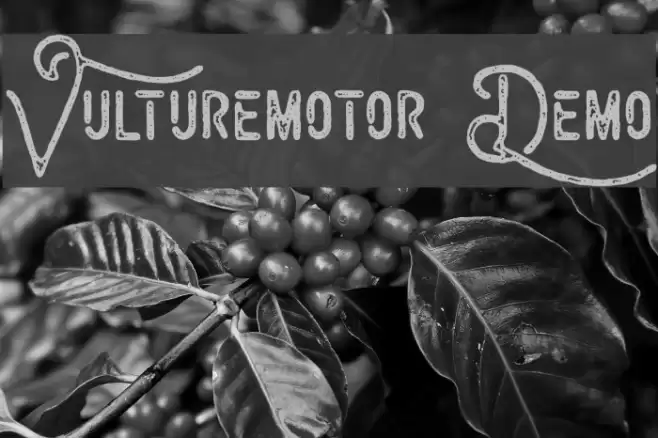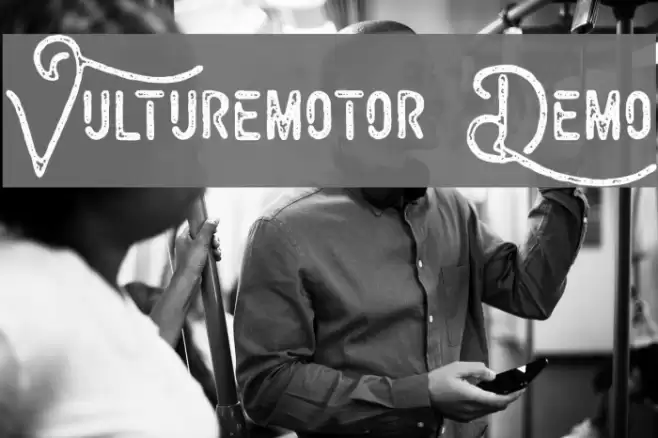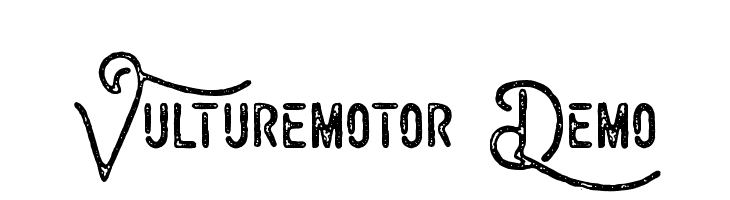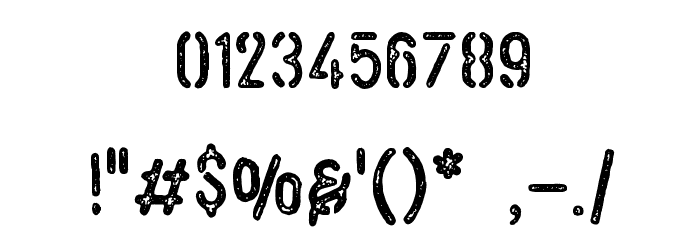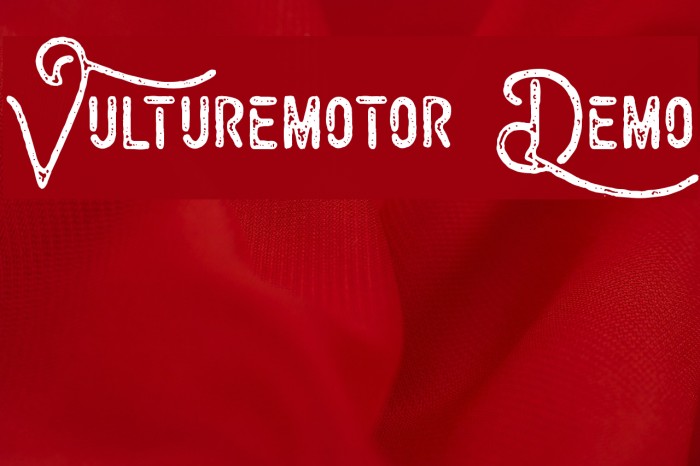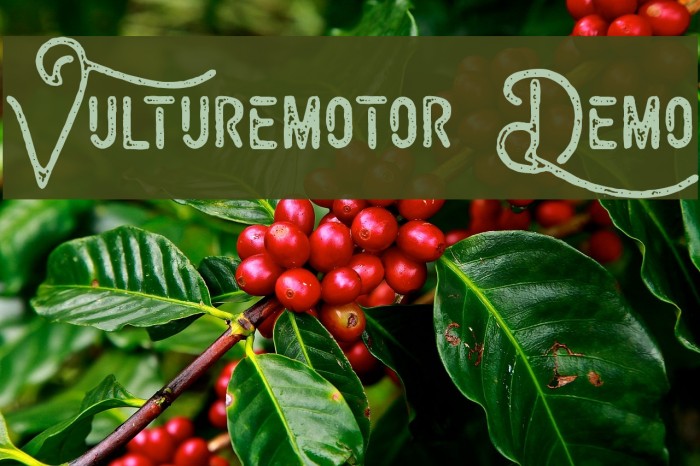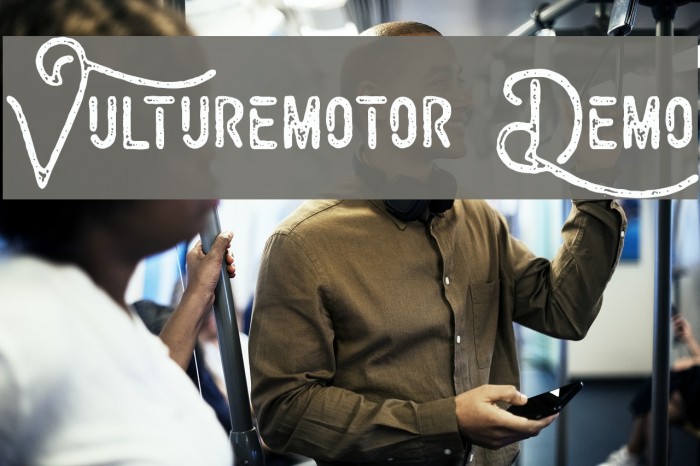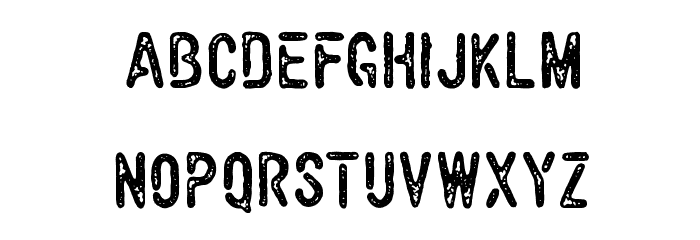
Vulturemotor Demo Font
Vulturemotor Demo Description
This font features a unique combination of ornate script and distressed sans-serif styles. The uppercase script letters are highly decorative, with intricate loops and flourishes that give a sense of elegance and sophistication. In contrast, the uppercase sans-serif letters are bold and rugged, with a distressed texture that adds a vintage, worn look. The numerals and special characters follow the sans-serif style, maintaining the distressed appearance. This dual-style font offers versatility, making it suitable for projects that require both elegance and a touch of rustic charm.
A dual-style font combining ornate script with distressed sans-serif elements from Distorted Eroded fonts.
- Proposed Projects: Ideal for vintage-themed designs, wedding invitations, branding for rustic or artisanal products, and decorative signage.
- Overall Style: Vintage
- Use Case: Logos, Headlines, Decorative text